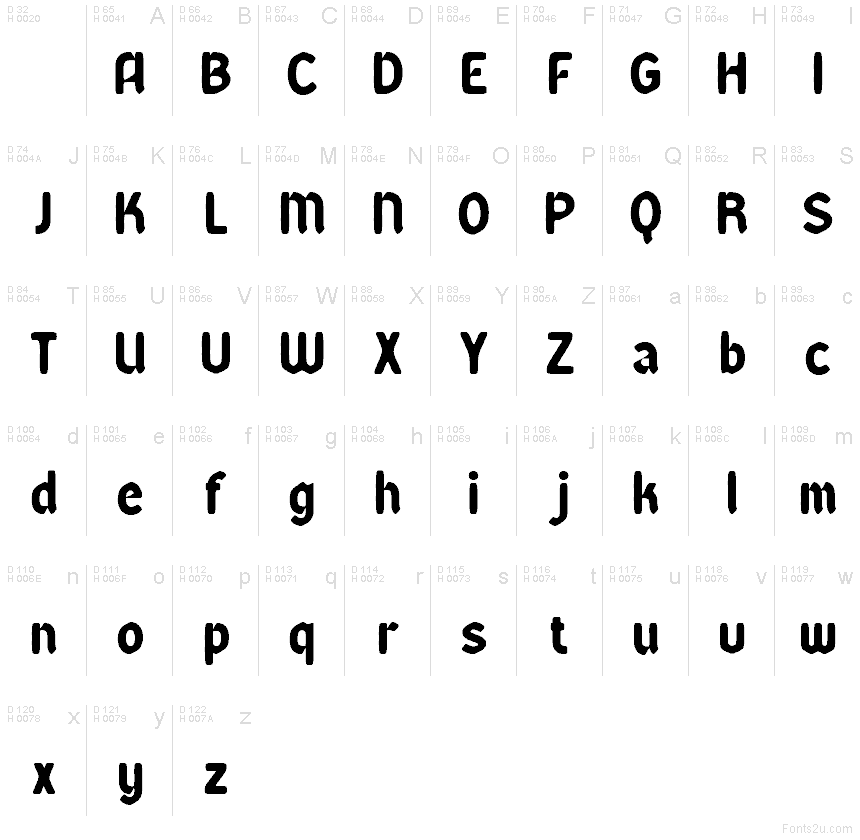
CSArchieDrawn-Regular Demo
CS Archie Drawn font by Craft Supply Co. is a vintage display free font designed with family-friendly rounded character design. Some of its most visible features are large x-height, stem curves, and smooth connections between characters. The result can be described as a casual, friendly, approachable render with a touch of modern.
Use it in magazine covers and game covers or as part of designs used on t-shirts and apparel in general. Suitable usages also include posters, greeting cards, video games graphics and board games graphics along other branding ideas for companies from different industries.
CS Archie Drawn Demo